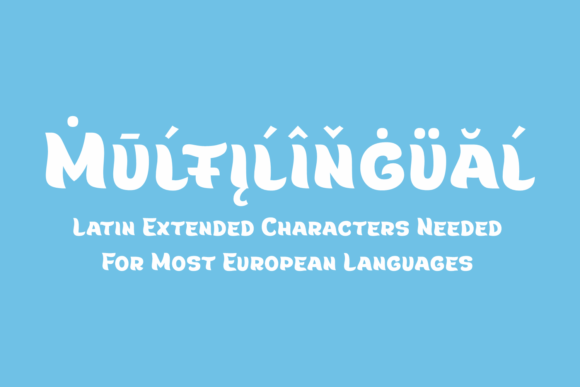
Grab this playful mermaid tail font for FREE from Creative Fabrica! The typeface features a thick font with a subtle wave design. Included is the uppercase and lowercase alphabet plus the uppercase alphabet with a mermaid tail.
This cute font is perfect for;
- T-shirt projects
- water bottle and tumbler designs
- personalised beach bags
- birthday party decorations such as banners and gift bags
- gifts for someone you know who loves mermaids!